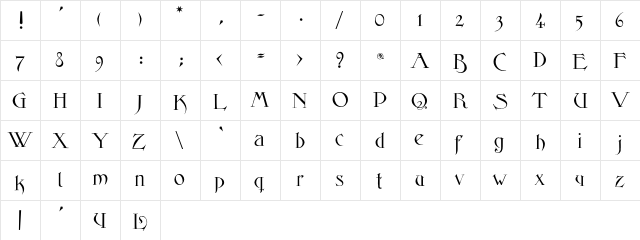
Elphinstone Regular
Design Context for Elphinstone Typeface
Elphinstone is a composed and adaptable typeface that performs quietly and consistently across a wide range of design contexts.